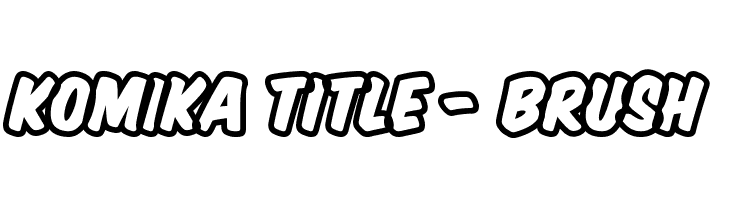
A playful, handwritten font with a bold, slanted style.
A playful, bold font with rounded edges and a comic book style.
A bold, playful font with rounded, slanted characters.
A bold, italicized font with a playful and dynamic style.
A bold, italicized, handwritten font with a playful and dynamic style.
A playful, bold font with rounded, cartoon-like characters and tight spacing.
A playful, handwritten italic font with bold, rounded characters.
A bold, playful, and hand-drawn style font with a dynamic slant.
A bold, playful font with dynamic, slanted characters.
A bold, playful brush-style font with thick outlines and dynamic character shapes.